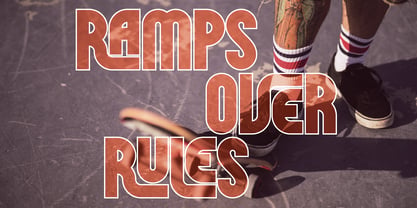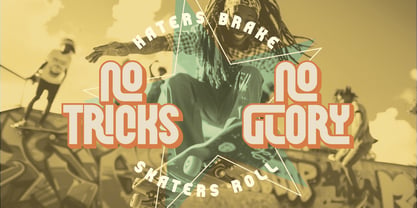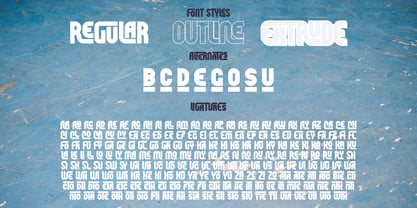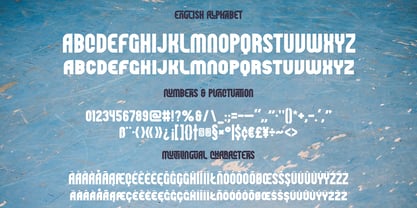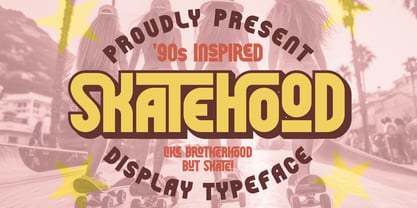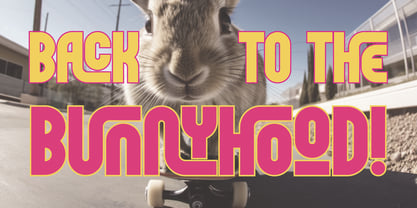
Skatehood
The Skatehood Font Family was designed by Oleg Voznyy and published by Vozzy. Skatehood contains 3 styles and family package options. More about this family
Introducing "Skatehood," a distinctive font designed specifically for headlines, accent inscriptions, and capturing attention. This versatile typeface features a wide array of additional characters, punctuation marks, and multilingual options, making it perfect for diverse design needs. With a generous selection of standard ligatures, ensure your software supports this OpenType feature for optimal use. "Skatehood" will elevate your beautiful designs, adding a unique flair that stands out in branding, web design, and editorial projects.